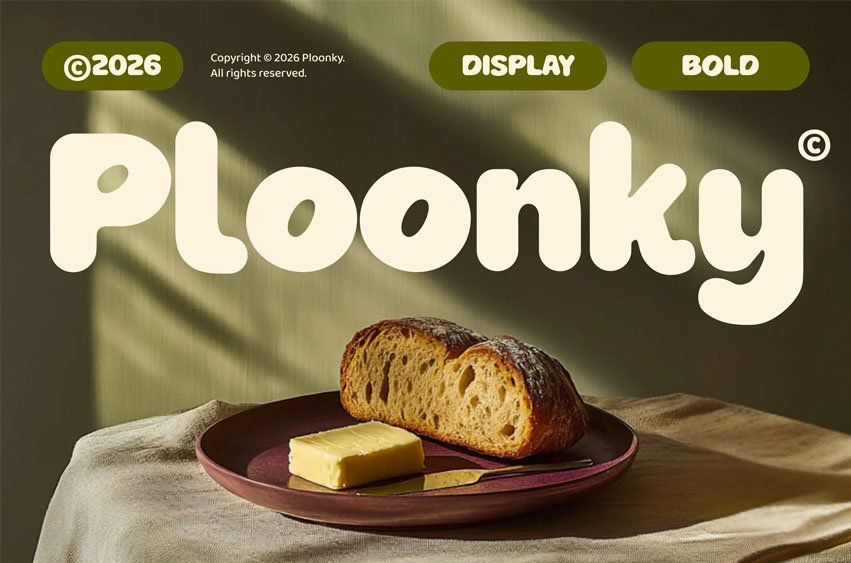
Ploonky Font
Ploonky Font is a playful display font with bold, rounded characters and a fun personality. Perfect for kids branding, playful logos, packaging, posters, and social media designs. Its soft curves and friendly shapes create an eye-catching look that brings cheerful, creative energy to any project.